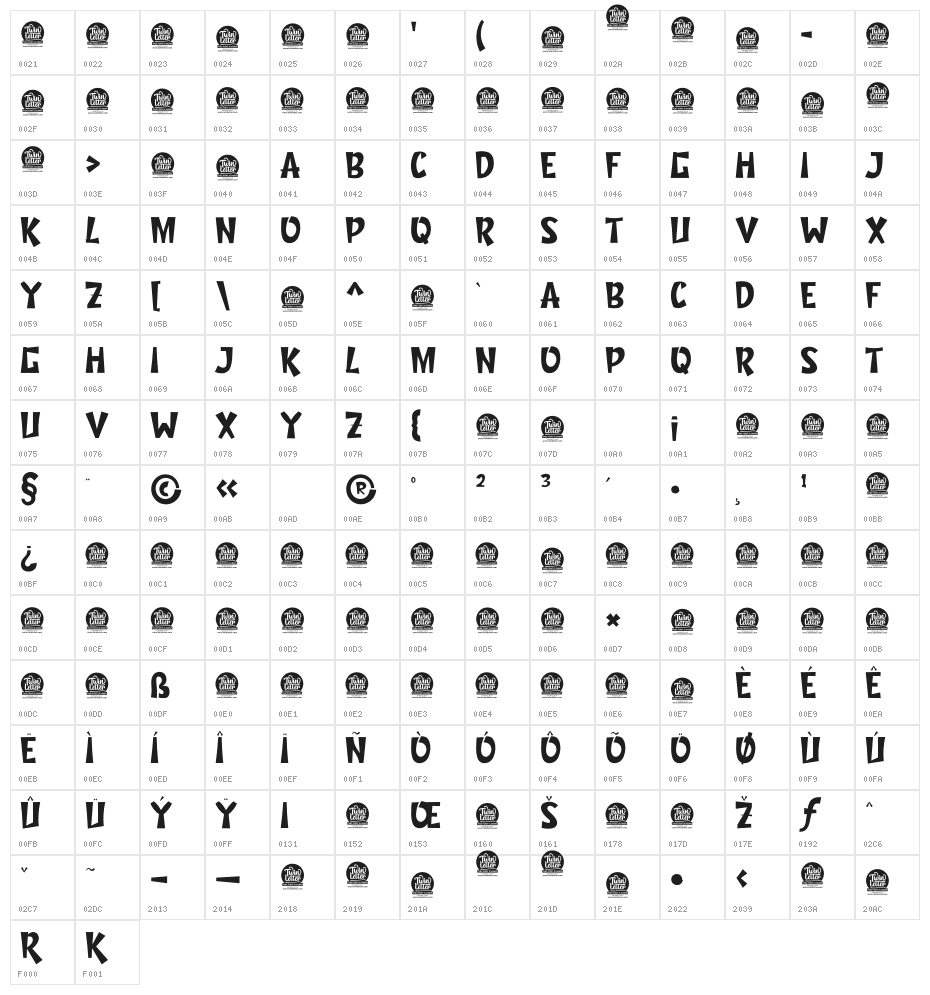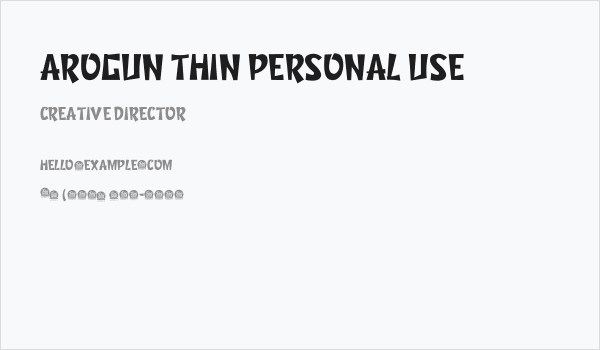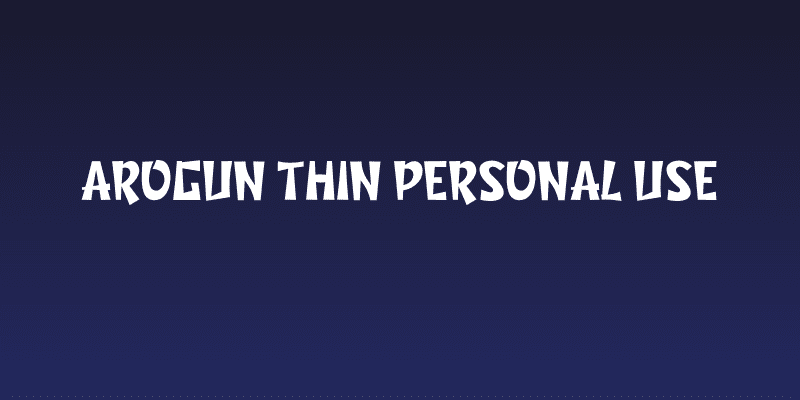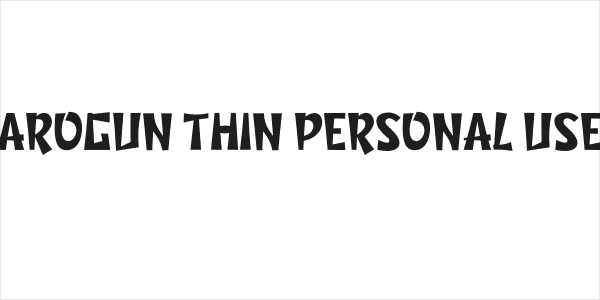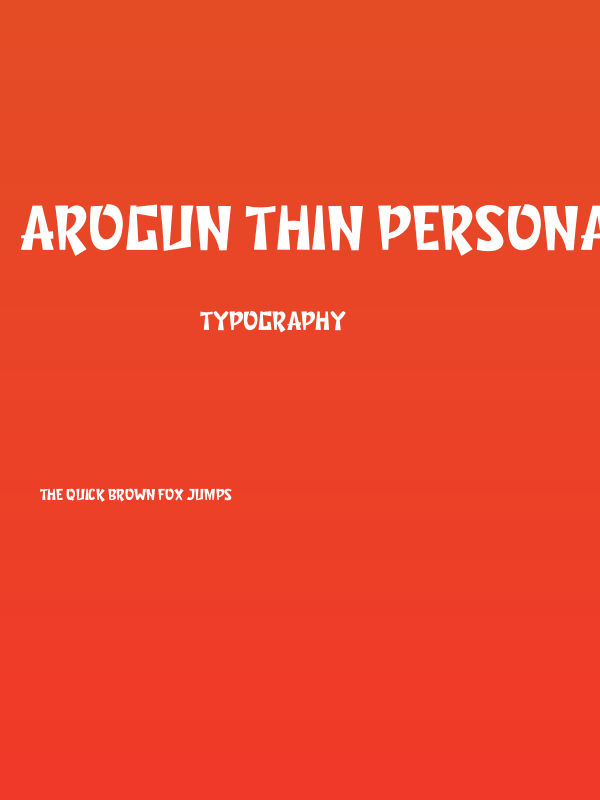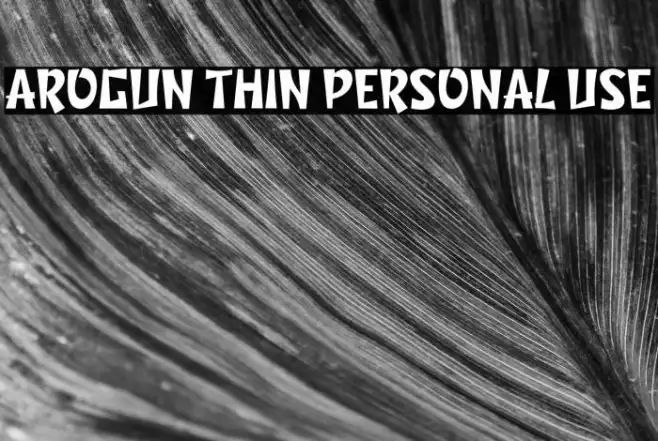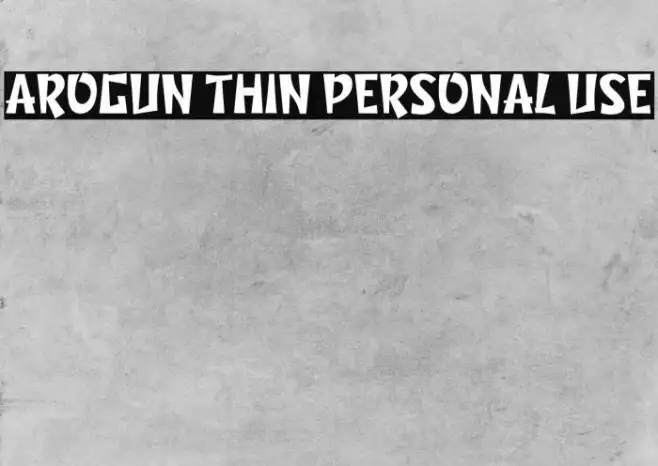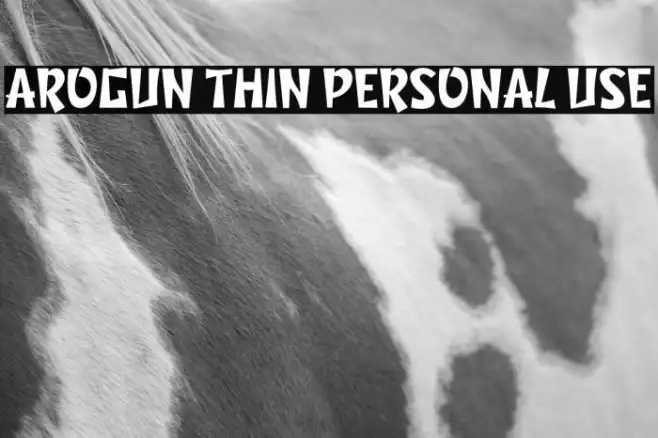
Arogun Thin Personal Use Font
Arogun Thin Personal Use Description
This font features a bold and dynamic style with a playful and slightly irregular design. Each character has a unique flair, with varying angles and strokes that create a sense of movement and energy. The uppercase letters are particularly striking, with sharp edges and a strong presence. The overall appearance is both modern and artistic, making it suitable for creative projects that require a distinctive and eye-catching typeface. The font's boldness and unique character shapes make it stand out in any design context.
| Proposed Projects | Ideal for posters, branding, and creative design projects that require a bold and artistic touch. |